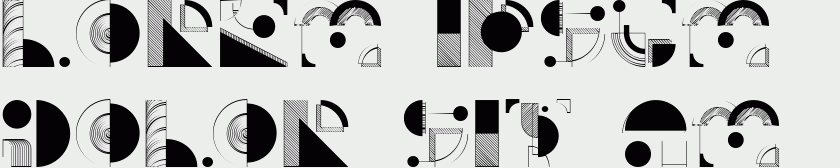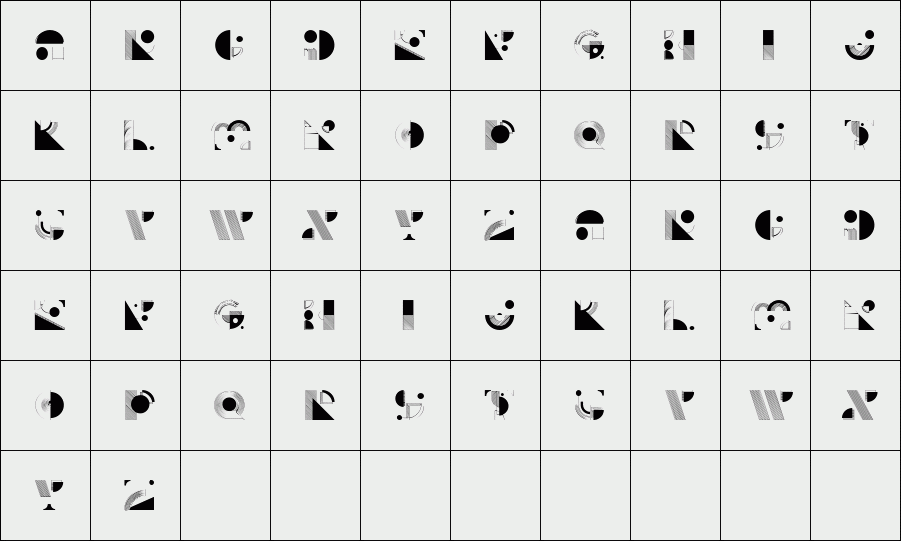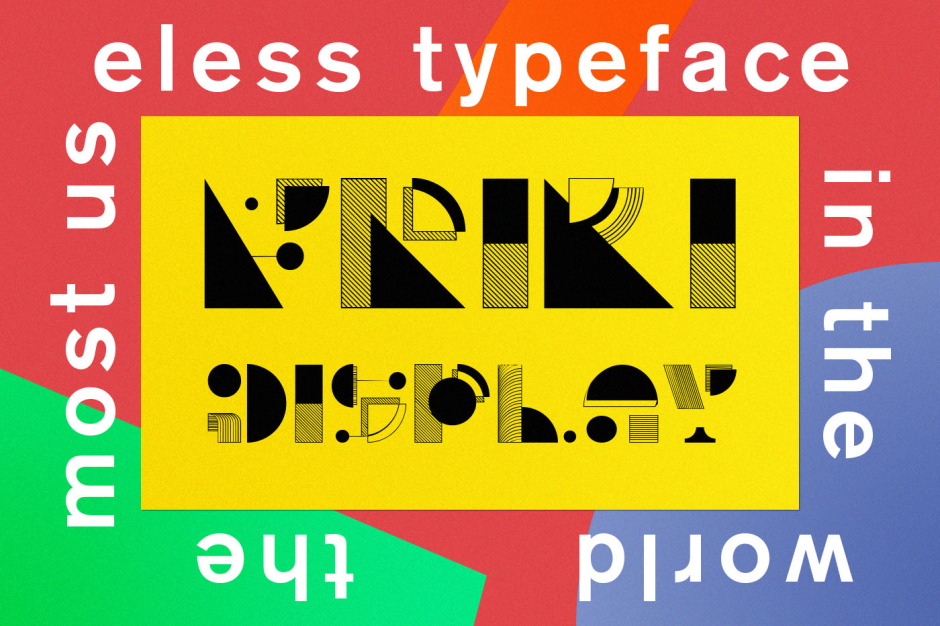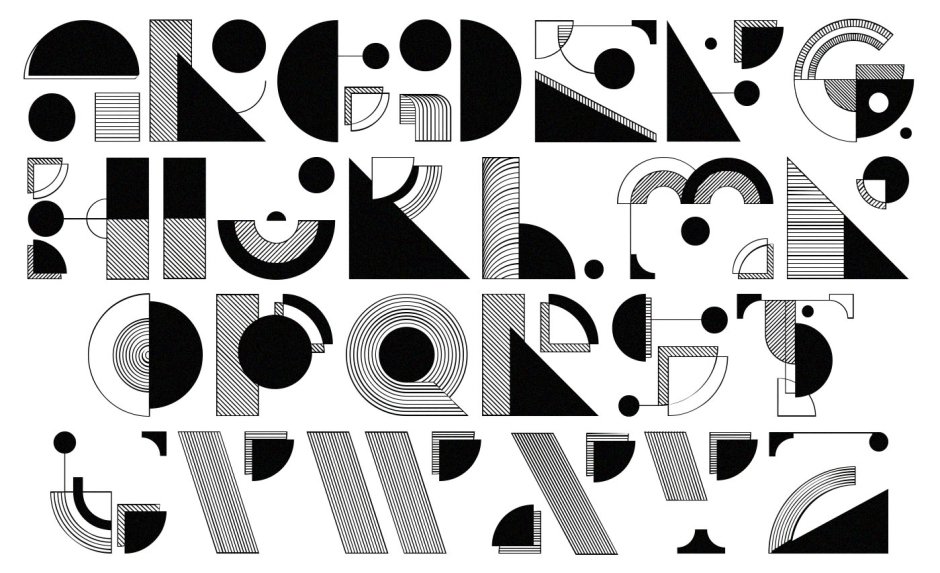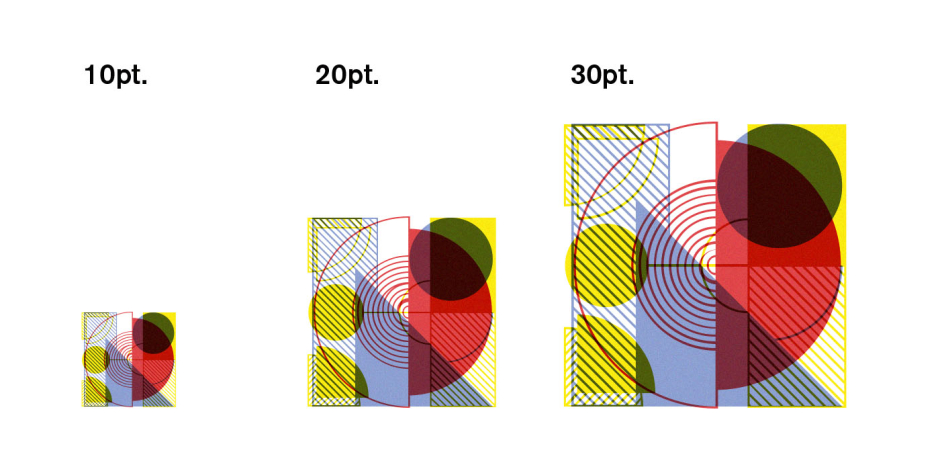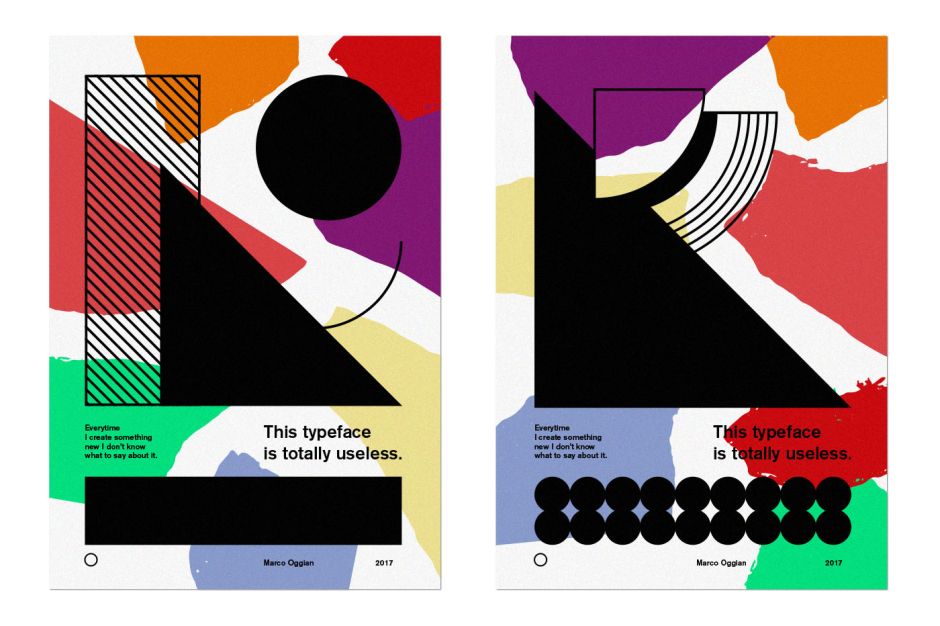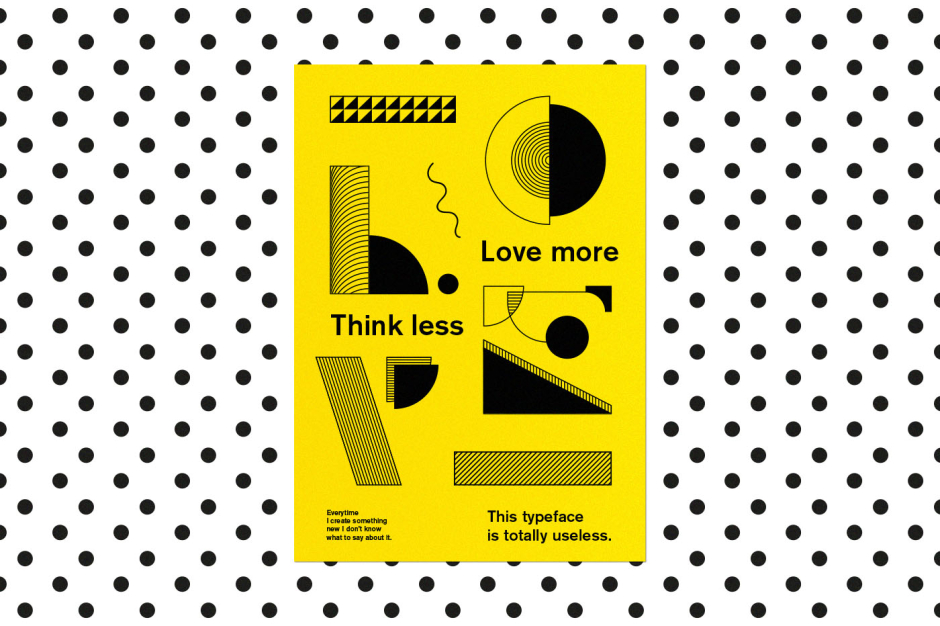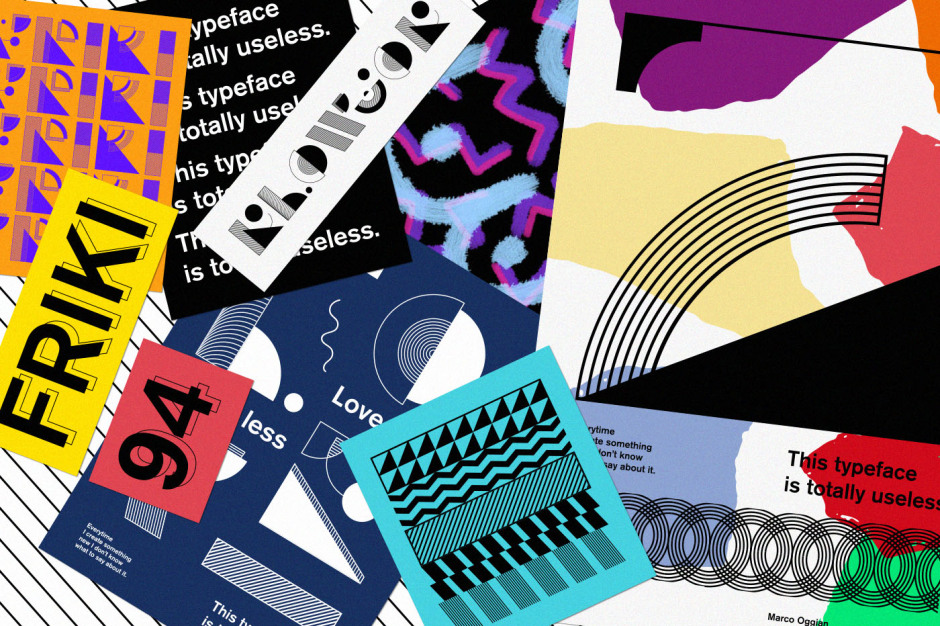
Friki Display
This typeface is full of mistakes, has no numbers, no special characters, and does not serve anything. I did it in a hurry, and if you zoom in, you notice that it sucks. Well, you can create beautiful posters and it is an eye-catching display inspired by the bauhaus movement.
Designer: Marco Oggian